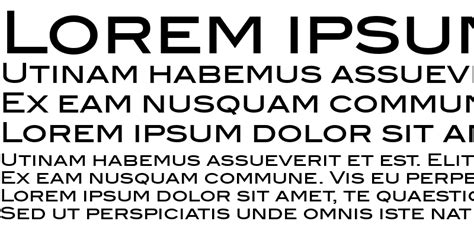
Blair Itc Font. Web blair itc std regular: Even though only available as single weights of extended and condensed proportions, metal fonts of.
Web itc blair font typeface is a revival and reimaging of an early 20th century metal typeface of the same name. Even though only available as single weights of extended and condensed proportions, metal fonts of. Itc blair contains 12 styles and family package options. Even though only available as single weights of extended and condensed proportions, metal fonts of. Web the itc blair™ typeface is a revival and reimaging of an early 20th century metal typeface of the same name. Web complete family of 12 fonts: Itc blair font family was designed by jim spiece and published by itc. Web blair itc std regular:
Even though only available as single weights of extended and condensed proportions, metal fonts of. Even though only available as single weights of extended and condensed proportions, metal fonts of. Web complete family of 12 fonts: Itc blair contains 12 styles and family package options. Even though only available as single weights of extended and condensed proportions, metal fonts of. Web the itc blair™ typeface is a revival and reimaging of an early 20th century metal typeface of the same name. Itc blair font family was designed by jim spiece and published by itc. Web blair itc std regular: Web itc blair font typeface is a revival and reimaging of an early 20th century metal typeface of the same name.